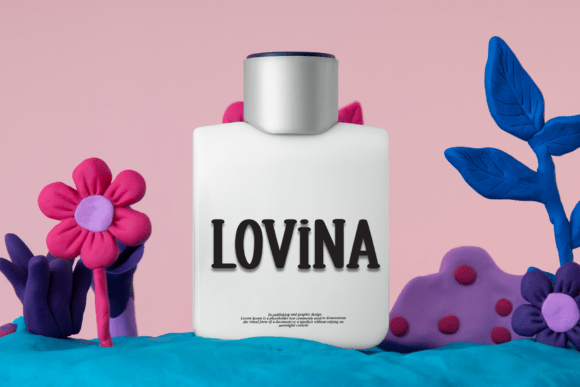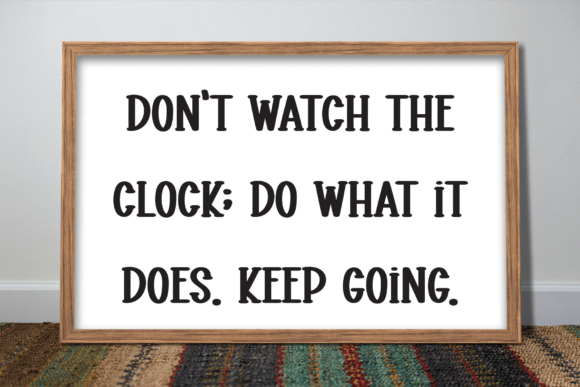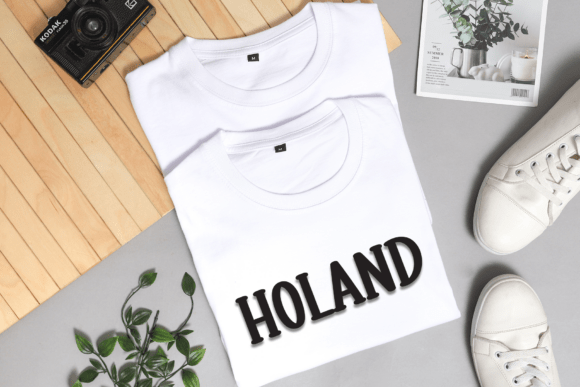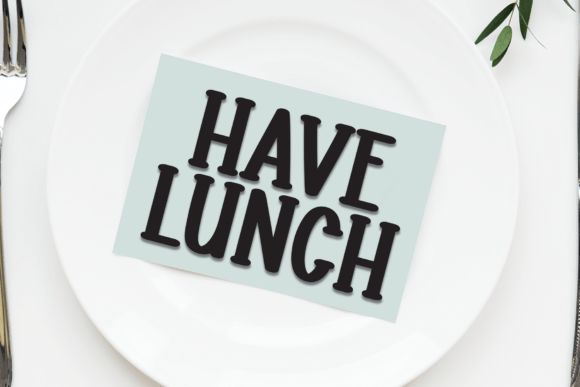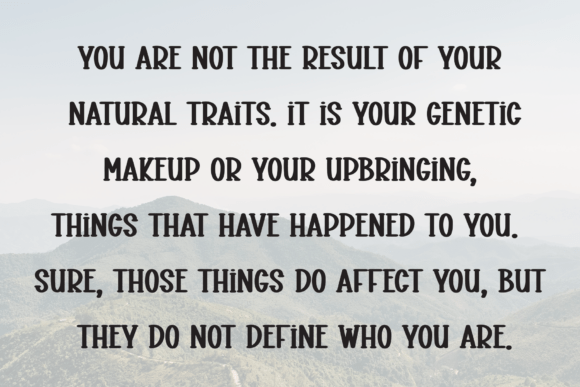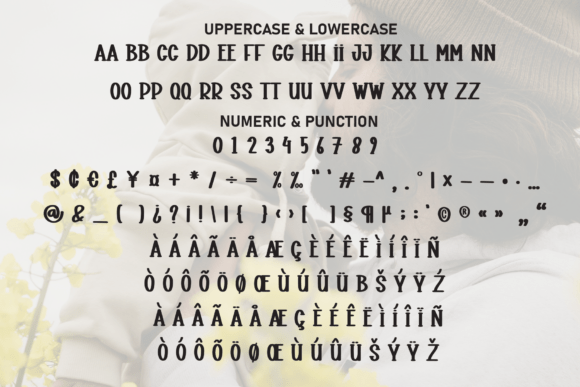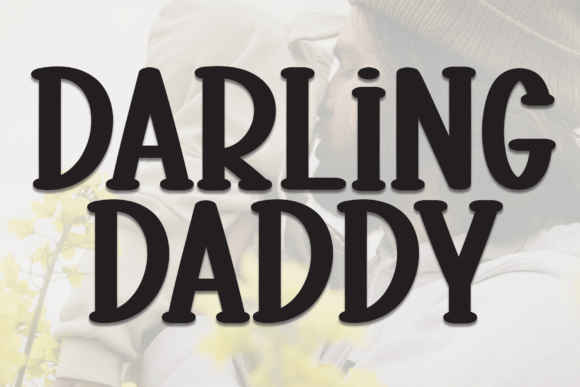
Introducing Darling Daddy Font: The Perfect Addition to Your Design Arsenal
Are you tired of using the same old fonts in your designs? Do you want to add a touch of personality and whimsy to your projects? Look no further than Darling Daddy Font, a delightful and charming handwriting-inspired display font that’s sure to capture the hearts of designers and crafters alike.
The Charm of Darling Daddy Font
Darling Daddy Font is a sweet and personable font that’s designed to evoke an aura of friendliness and warmth in your designs. With its playful and entertaining twist, this font is perfect for adding a unique sparkle to any project. Whether you’re designing wedding invitations, greeting cards, or any other type of project that requires a personal touch, Darling Daddy Font is the perfect choice.
What Makes Darling Daddy Font So Special?
So, what sets Darling Daddy Font apart from other fonts on the market? For starters, its handwriting-inspired design gives it a unique and personal feel that’s hard to replicate with traditional fonts. The font’s sweet and playful aesthetic is also incredibly versatile, making it suitable for a wide range of design applications.
Perfect for Personalizing Your Designs
One of the best things about Darling Daddy Font is its ability to add a personal touch to your designs. Whether you’re creating custom wedding invitations, birthday cards, or any other type of personalized item, this font is sure to make your designs stand out. The font’s playful and whimsical nature also makes it perfect for creating fun and engaging designs that are sure to delight your audience.
Darling Daddy Font is incredibly versatile, making it suitable for a wide range of design applications. Here are just a few ideas to get you started:
Why Choose Darling Daddy Font?
So, why should you choose Darling Daddy Font for your design projects? Here are just a few reasons:
- Unique and playful aesthetic: Darling Daddy Font has a one-of-a-kind design that’s sure to make your designs stand out.
- Highly versatile: This font is suitable for a wide range of design applications, from wedding invitations to social media graphics.
- Easy to use: Darling Daddy Font is incredibly easy to use, even for designers who are new to working with handwriting-inspired fonts.
- Perfect for personalizing your designs: This font is designed to add a personal touch to your designs, making it perfect for creating custom and personalized items.
Get Ready to Fall in Love with Darling Daddy Font
If you’re looking for a font that’s sure to capture the hearts of your audience, look no further than Darling Daddy Font. With its sweet and personable aesthetic, this font is perfect for designers and crafters who want to add a touch of whimsy and personality to their designs. So why wait? Download Darling Daddy Font today and experience the delightful charm of this endearing handwriting-inspired display font for yourself.
In conclusion, Darling Daddy Font is a must-have for any designer or crafter looking to add a touch of personality and whimsy to their designs. With its unique and playful aesthetic, this font is sure to make your designs stand out and leave a lasting impression on your audience. Whether you’re designing wedding invitations, greeting cards, or any other type of project, Darling Daddy Font is the perfect choice. So why wait? Download Darling Daddy Font today and start creating designs that are sure to delight and inspire.